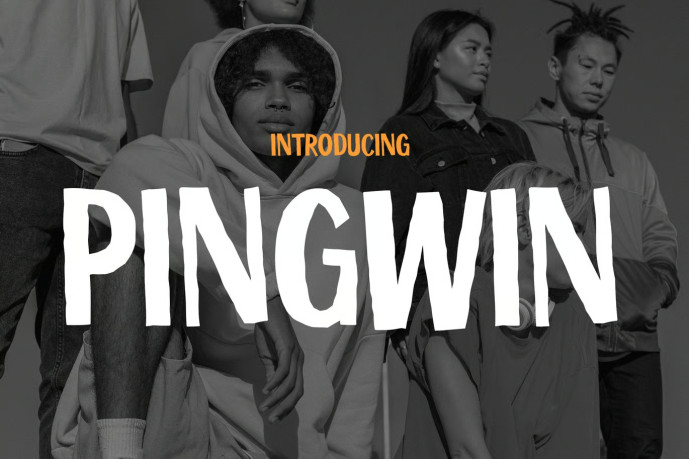
Pingwin – Modern Branding Font
Pingwin is a playful handcrafted display typeface designed for youth branding, merchandise design, and positive community campaigns. Featuring bold irregular letterforms, organic curves, textured edges, and a casual hand-drawn structure, it creates an approachable and expressive voice that feels authentic and easy to connect with.
Inspired by modern street culture, motivational graphics, sticker collections, and social media content, Pingwin combines readability with personality. Its relaxed construction gives every headline a human touch while maintaining strong visibility across digital and print applications. Whether you’re creating apparel graphics, social campaigns, poster designs, merchandise collections, or community-focused branding, Pingwin delivers a cheerful and memorable visual presence.